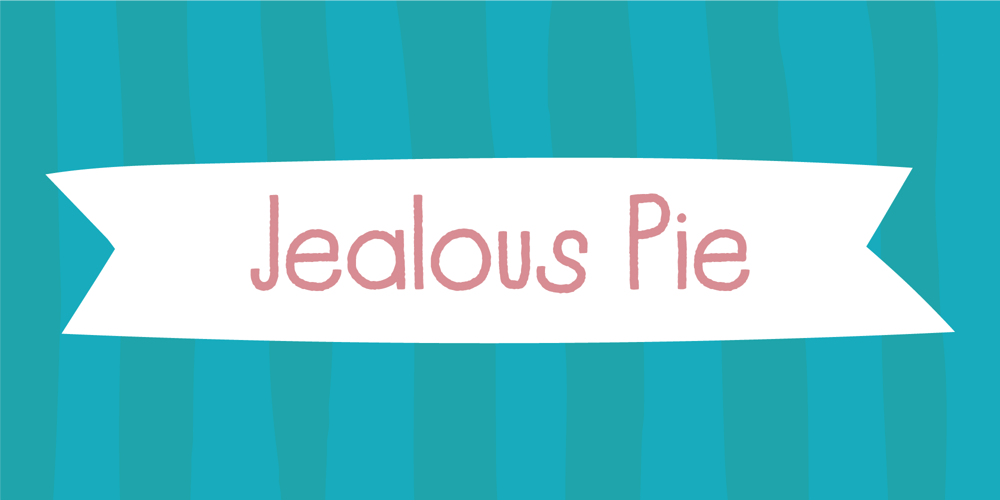
Jealous Pie Font Family was designed by Jakob Fischer and published by PizzaDude.dk. Jealous Pie contains 2 styles and family package options. Retro, art deco, rough, organic, lively and handmade!Mix all these ingredients and bake it at 180 degrees for 20 minutes and you have a nice mouthwatering design!Use my Jealous Pie font for anything that needs a slightly rough and handmade look – maybe packaging, posters, toys, bookcovers or invitations?